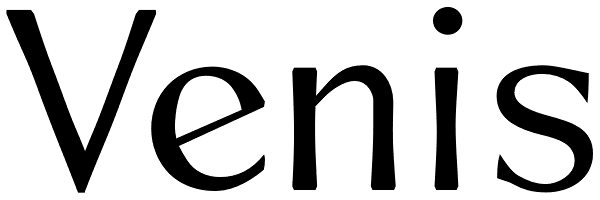
Venis
On first impression, Venis is a traditional text typeface: clean, simple and elegant with nice contrast. On closer inspection, you'll notice nuances that add charm and wonder, much like its name (rhymes with "tennis"). Is this font a serif or sans...